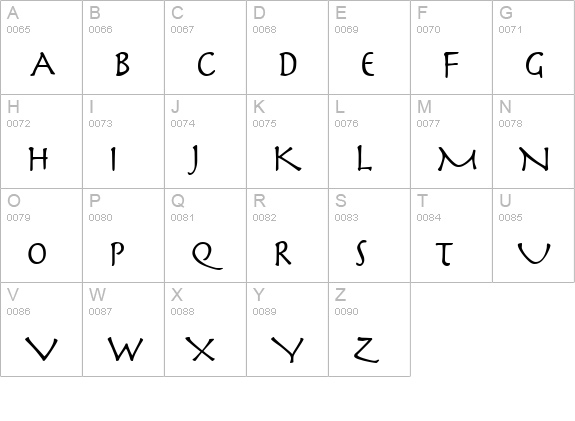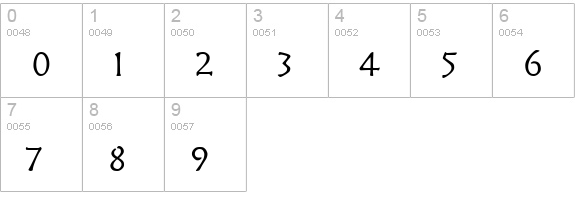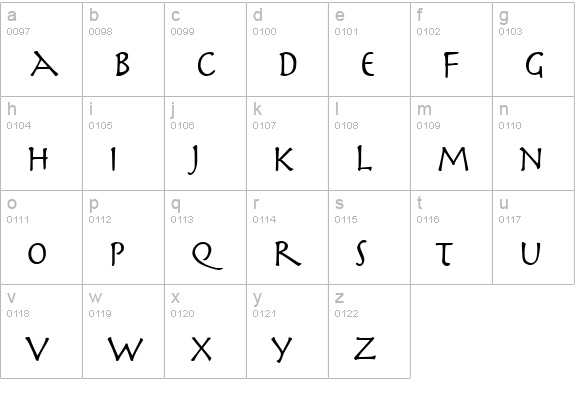
Mythology Normal Font Details
Mythology Normal is the standard, neutral variant in the Mythology typeface family \xE2\x80\x94 well suited to general body text, paragraphs, and standard typographic work.
Mythology Normal font is a captivating and elegant typeface that will transport your designs to a realm of ancient myths and legends. With its intricate details and classic style, this font exudes a sense of mystery and intrigue. Perfect for projects that require a touch of mythological charm, this font will add a magical element to your work. Best of all, Mythology Normal font is available for free download at FontsMarket.com. Embrace the power of mythology in your designs with this stunning font that is sure to captivate your audience and leave a lasting impression. Unlock the secrets of the past and infuse your creations with a touch of enchantment with Mythology Normal font.